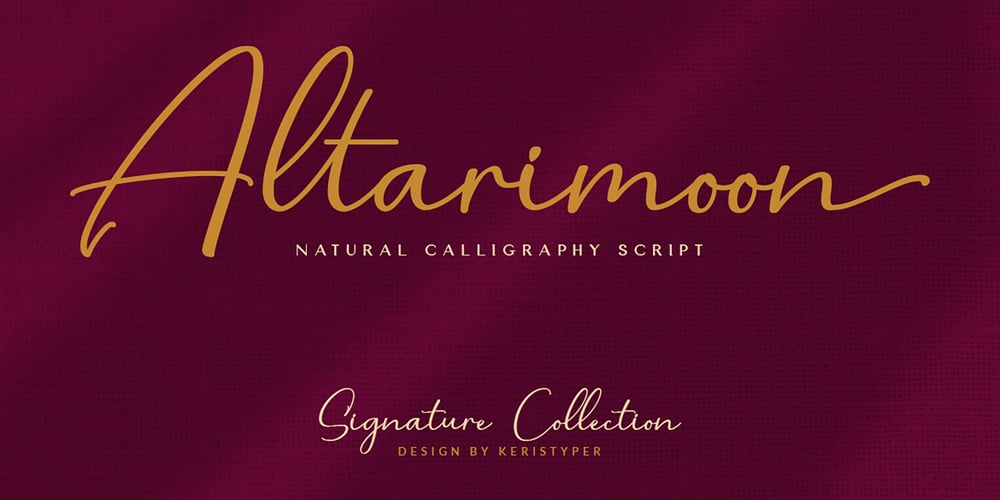
Altarimoon Font Family was designed by Tezar Tantular and published by Keristyper Studio. Altarimoon contains 1 styles and family package options. Introducing Altarimoon, a free-flowing, modern hand-drawn script. With a spontaneous feel and lots of alternates, it’s a perfect typeface for your branding projects or anywhere you need a fresh hand-drawn look.Altarimoon Font multilingual support: Afrikaans, Albanian, Catalan, Danish, Dutch, English, Estonian, French, Finnish, German, Icelandic, Indonesian, Italian, Malay, Norwegian, Portuguese, Spanish, Swedish, Zulu, and many more.What’s Included : Standard & Multilingual glyphs Ligature Works on PC & Mac Simple installations Accessible in Adobe Illustrator, Adobe Photoshop, Adobe InDesign, and even work on Microsoft Word. Hope you enjoy our font!